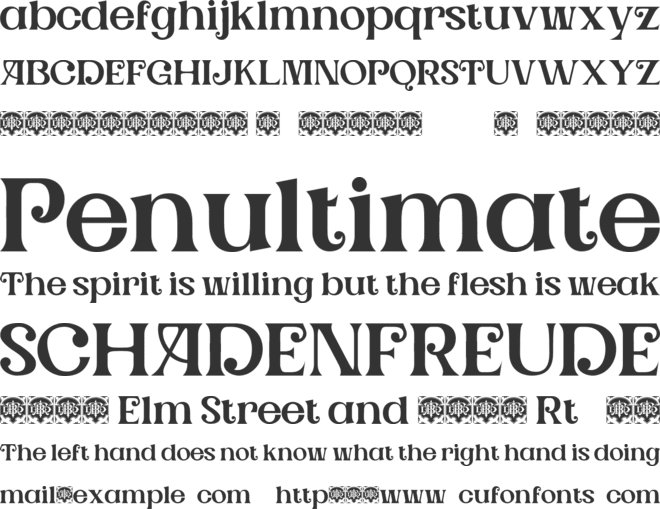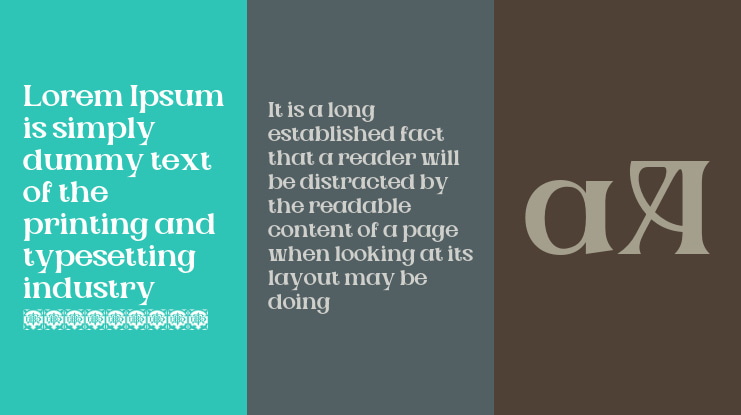
Sunridge Font
Sanridge is an elegant Art Nouveau display typeface that captures the romantic, flowing spirit of the early 20th century design movement. With its decorative curves, ornamental details, and vintage character, Sanridge brings timeless sophistication to any creative project.
Perfect For:
- Wedding invitations & stationery
- Logo & branding design
- Beauty & fashion packaging
- Boutique & hospitality signage
- Editorial headlines & magazine layouts
- Poster & social media design
- Perfume & cosmetic labels
- Book covers